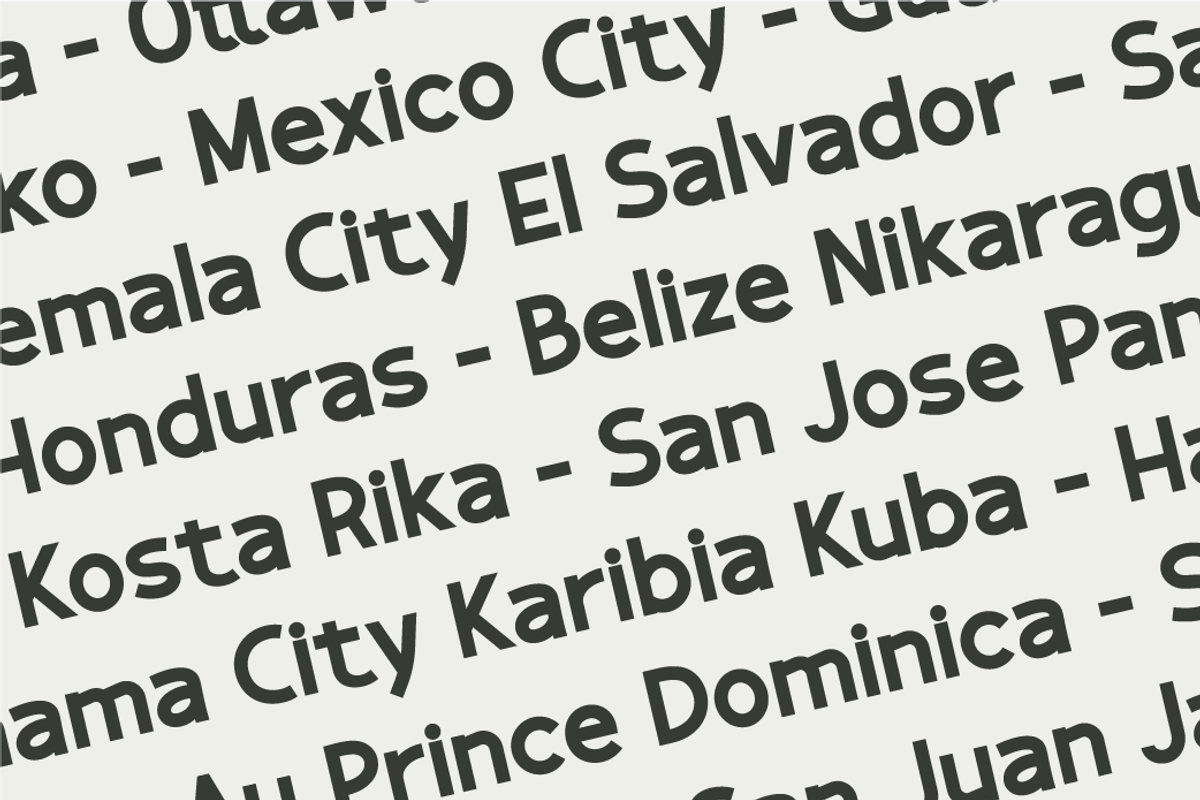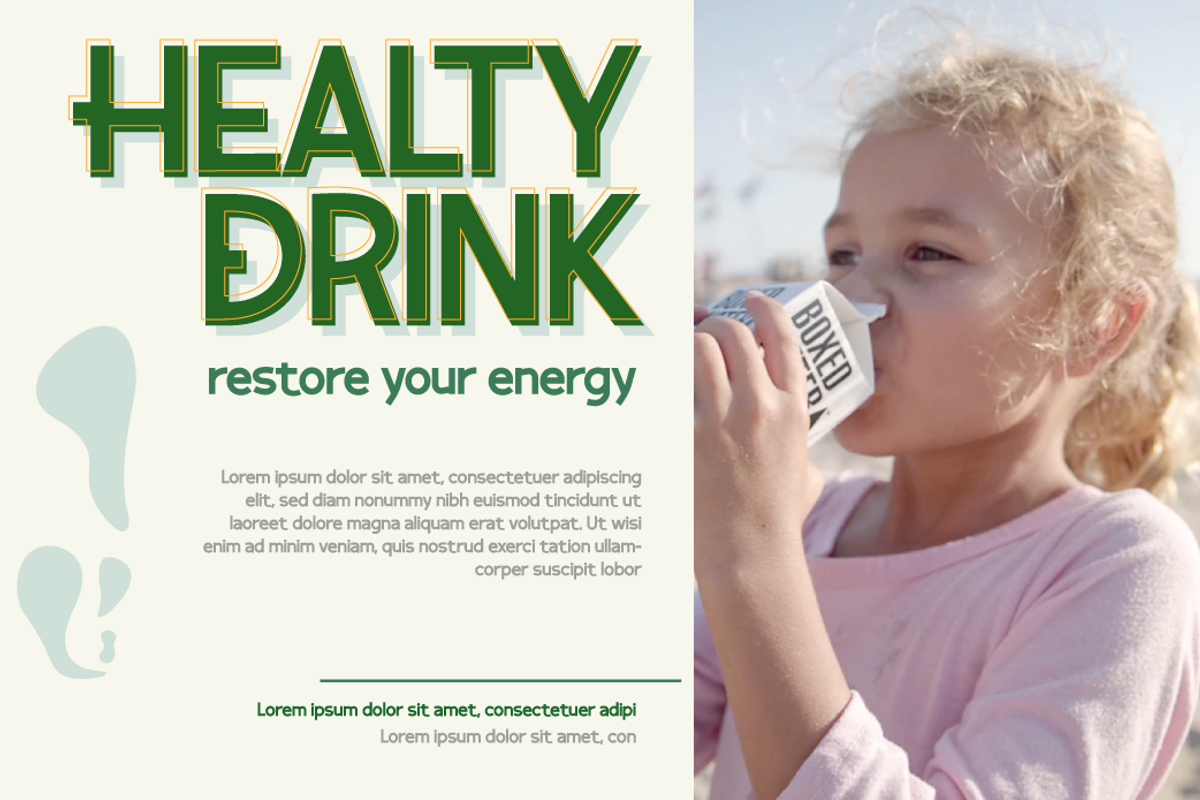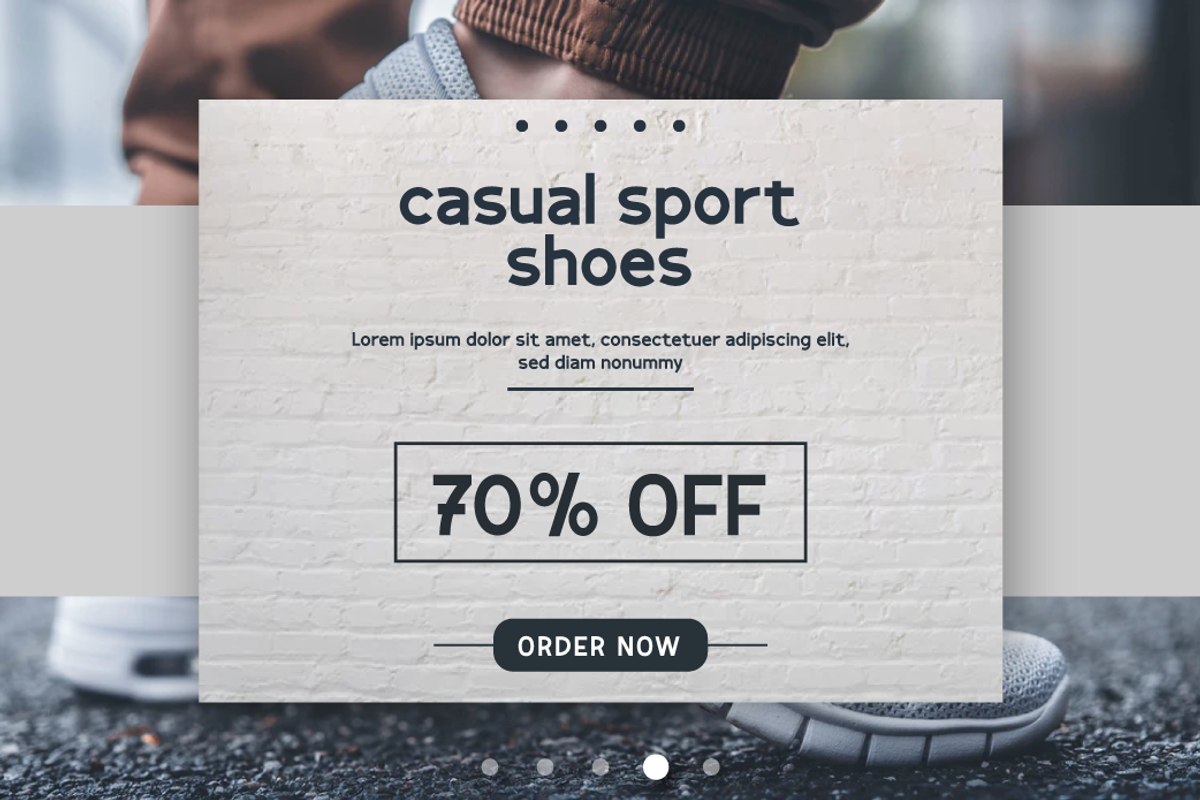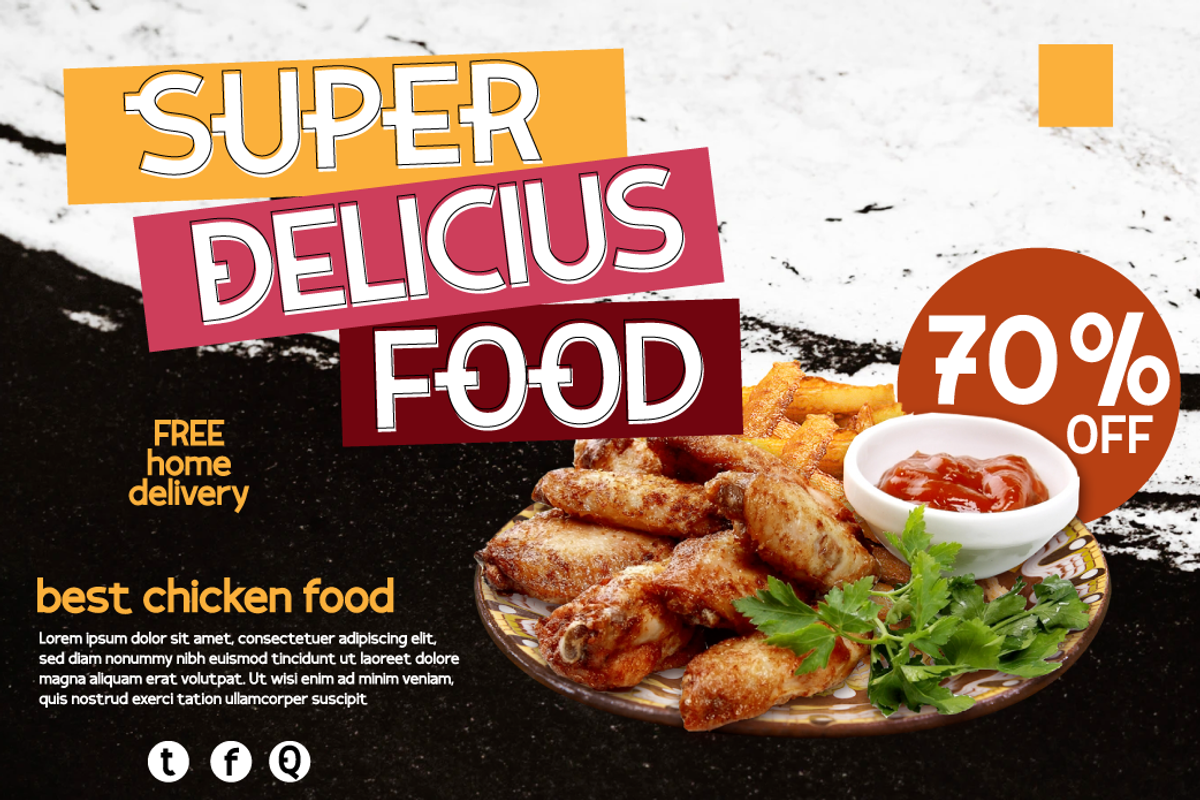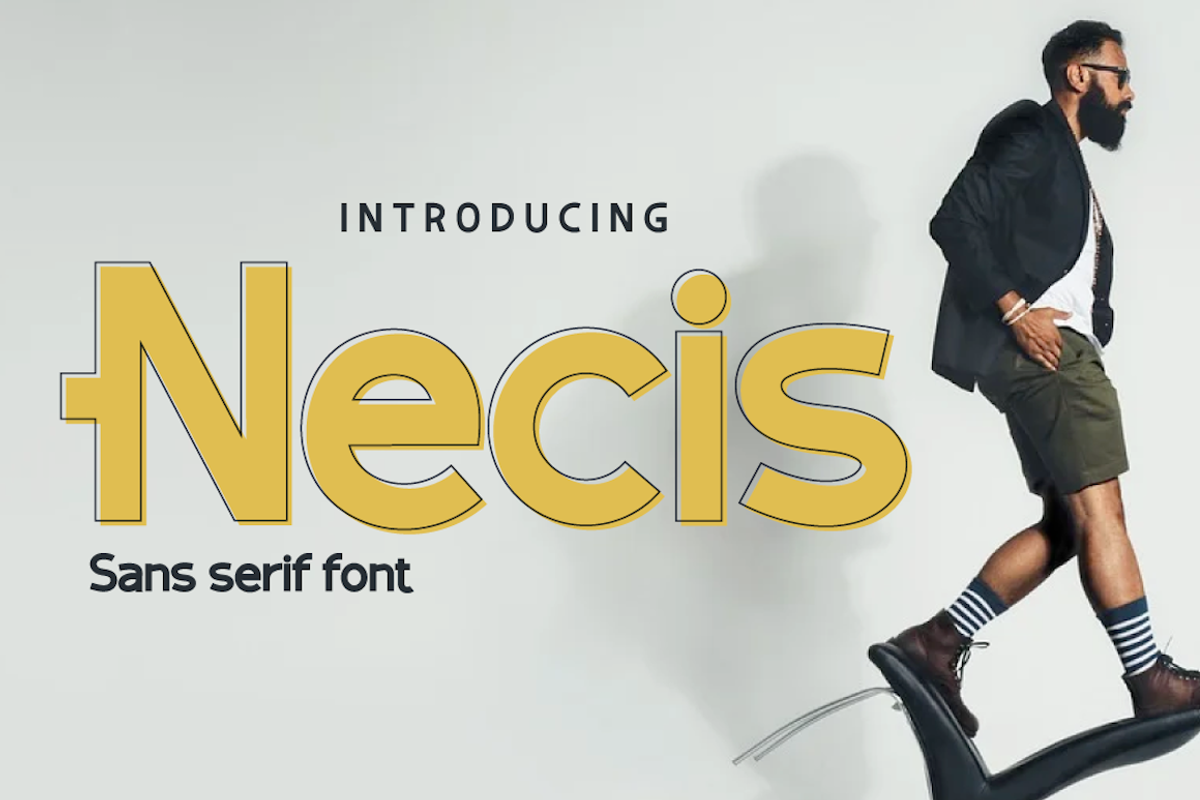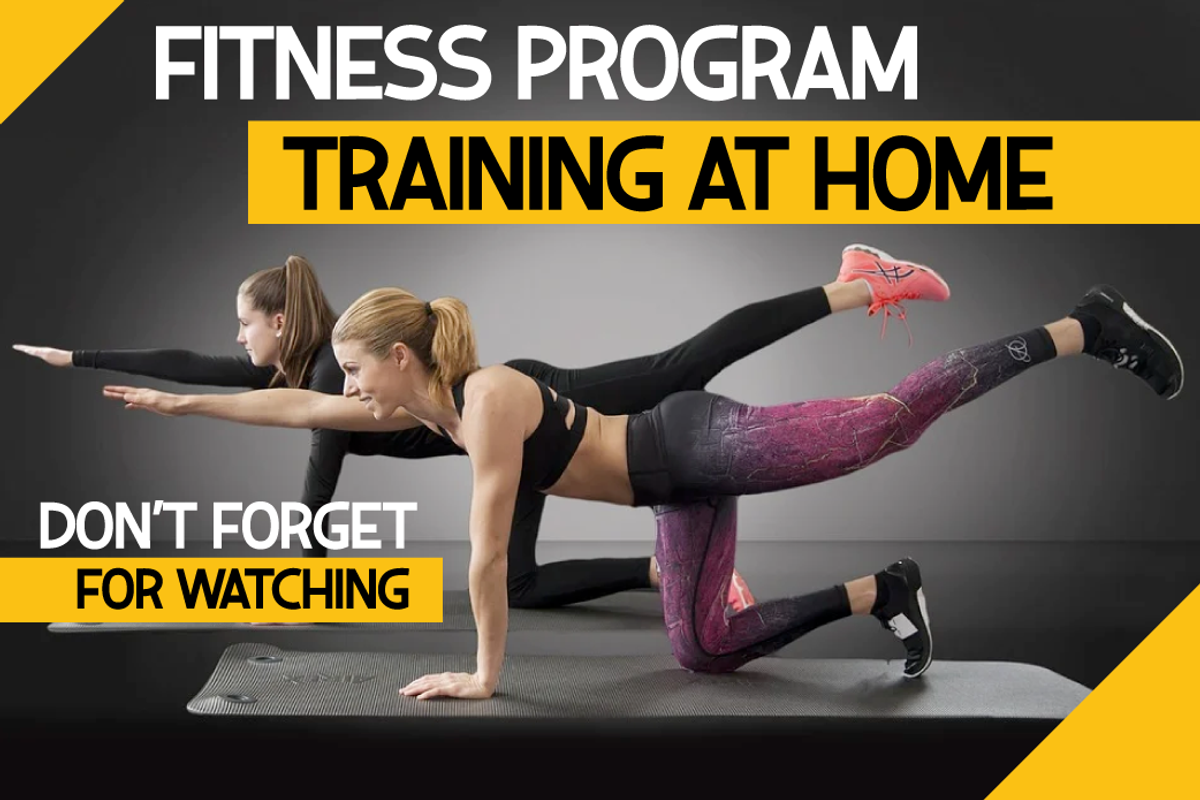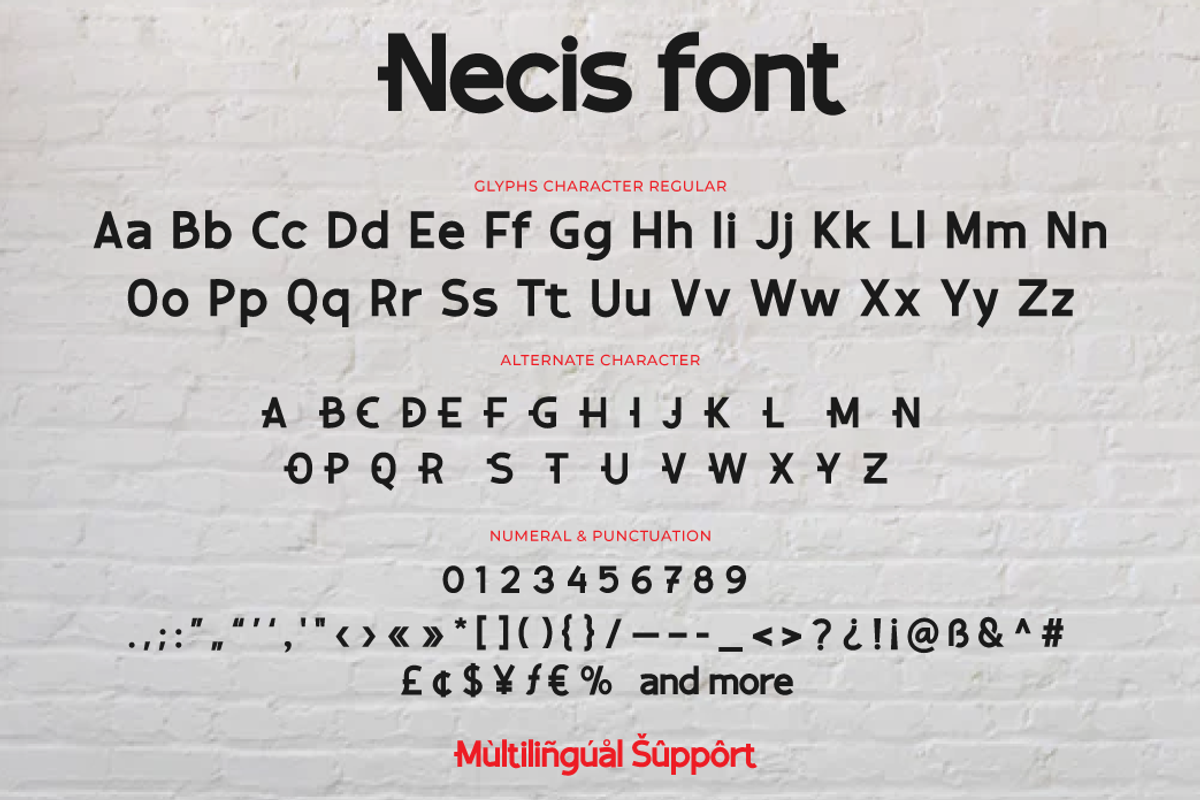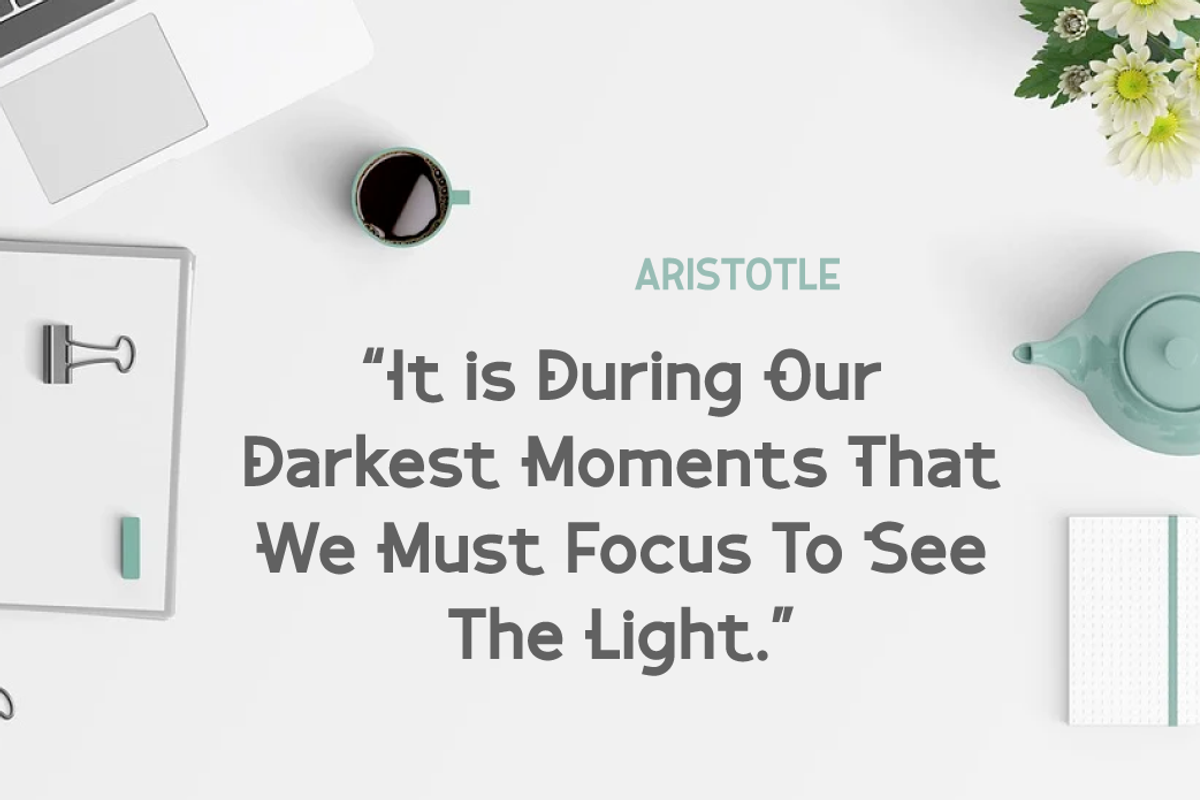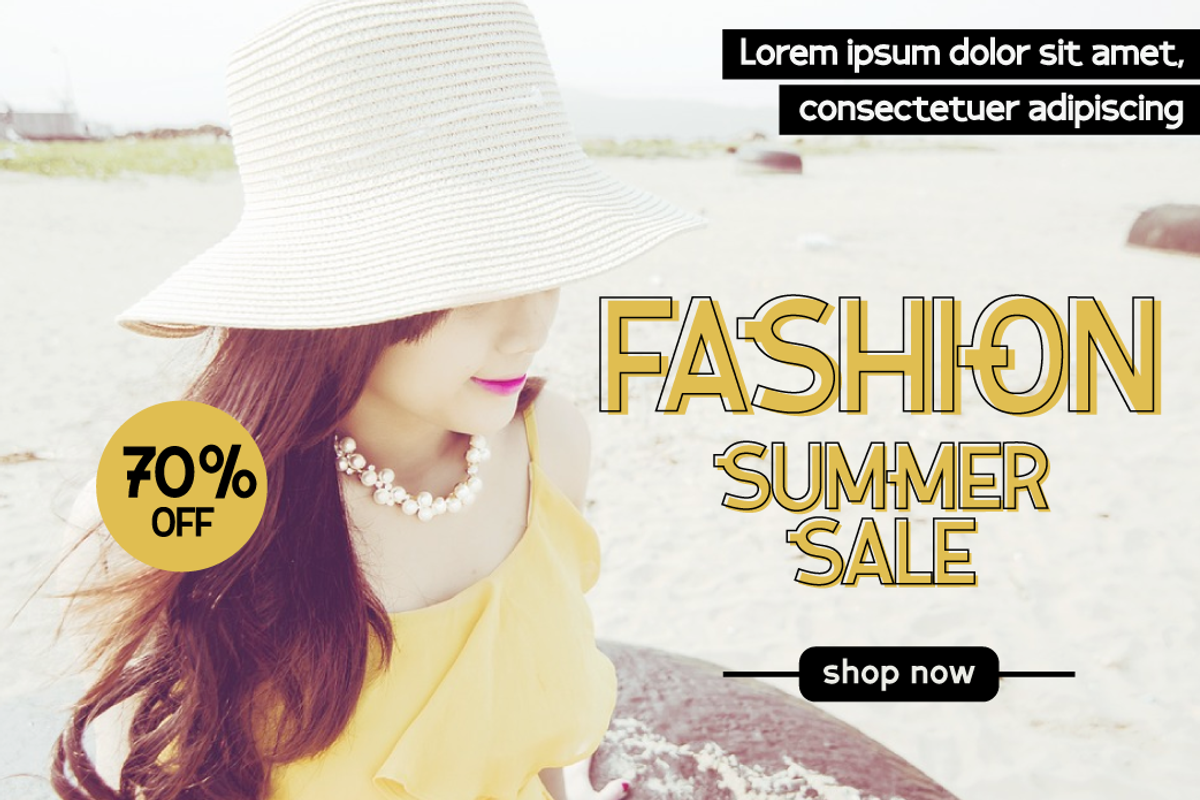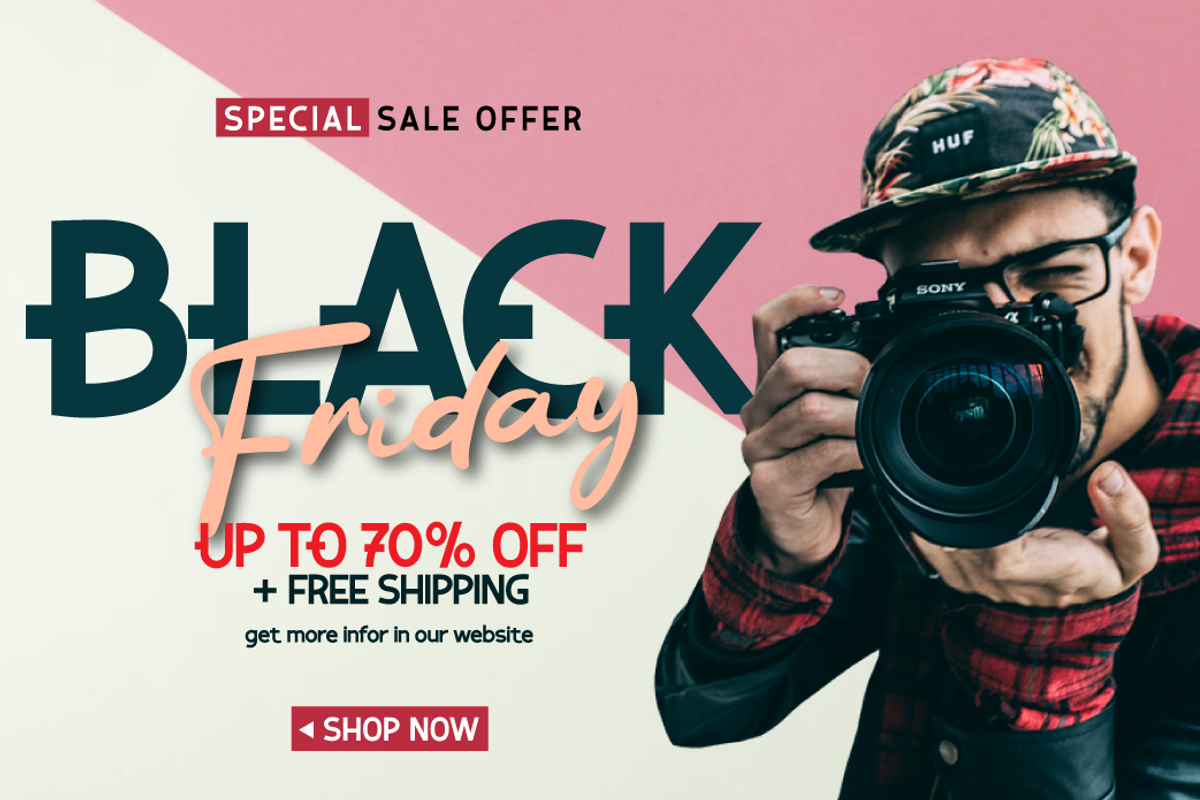
Necis
Introduce a font with a neat and harmonious character called a Necis font.
This font is designed with smooth and beautiful curves, as well as a geometric sans serif font family with a distinct twist of character. Simple yet sleek, this typeface design gives it a clean and modern look while bringing some quirk to the alternative. Especially, capital letters for branding your name or your brand title, and of course there are also alternative styles to help give the impression of an elegant appearance when you need it.
This font is perfect for strong text with displays for a wide variety of branding, advertising, posters, banners, packaging, news headlines, magazines, websites, logo design, and more.